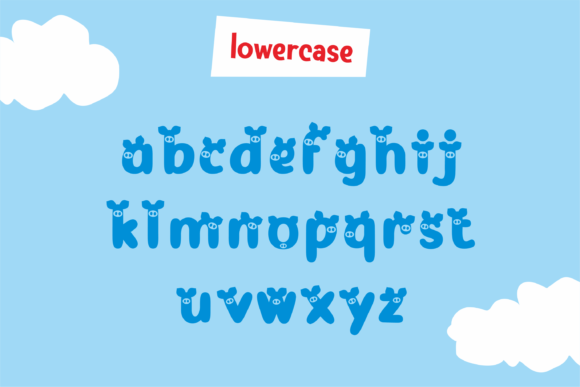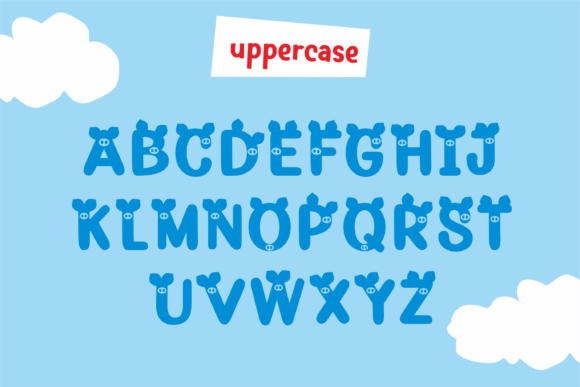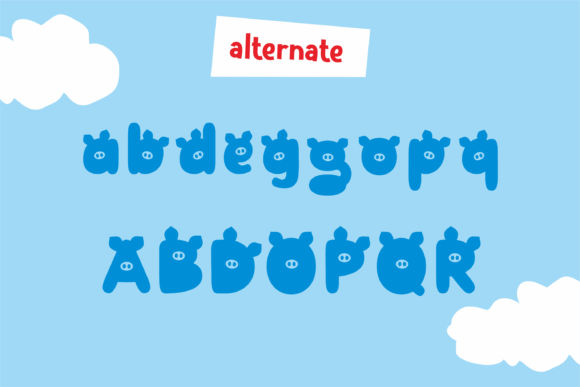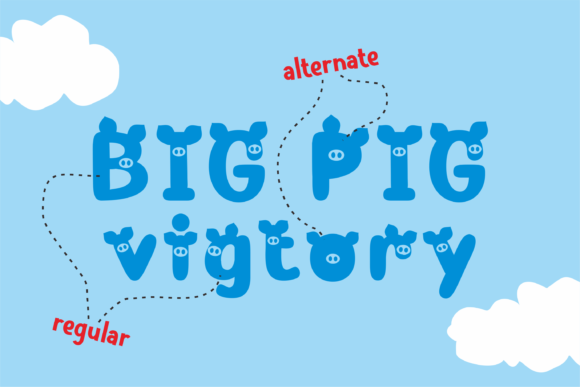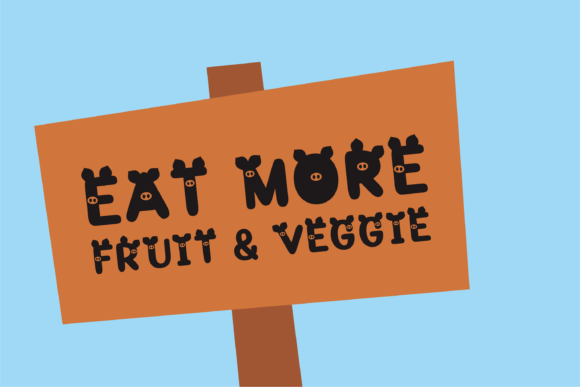
Introduction to Piggy Font
Piggy is a cute looking display font.
It works great on a variety of child related designs, especially when combined with bright colors .
Key Features of Piggy Font